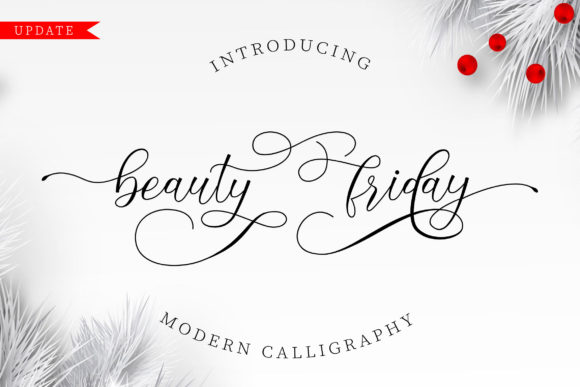
Beauty Friday Font
Introducing Beauty Friday - A Script Font Bestowing Timeless Elegance Upon Your Creative Endeavors
Begin your typographic journey with Beauty Friday, an exquisitely crafted script font that will transform your words into captivating works of art. This enchanting font, meticulously designed by Juncreative, exudes grace and allure, leaving an unforgettable impression on every page it graces.
Embrace the Beauty, Embrace the Friday
Beauty Friday is not just a font; it's an experience. Its meticulously crafted characters dance across the page, effortlessly capturing the essence of beauty and sophistication. Each letterform is a testament to the dedication and skill of its creator, ensuring that your designs exude an air of timeless elegance.
From wedding invitations and branding projects to social media posts and marketing campaigns, Beauty Friday effortlessly adapts to any creative landscape. Its versatility knows no bounds, allowing you to effortlessly create designs that resonate with your audience.
Dive into a World of Typographic Delights
With Beauty Friday, you're not limited to ordinary text. Unleash your creativity with an array of OpenType features, including swashes, ligatures, and stylistic alternates, that add depth and dimension to your designs. Experiment with different combinations to create eye-catching headlines, captivating logos, and visually stunning quotes that leave a lasting impression.
Beauty Friday - Your Creative Companion for Every Occasion
Whether you're a seasoned designer seeking to elevate your projects or a passionate hobbyist looking to add a touch of elegance to your creations, Beauty Friday is your perfect companion. Its versatility and charm make it suitable for a myriad of applications, ensuring that your creative vision knows no bounds.
Join the Beauty Friday Revolution Today